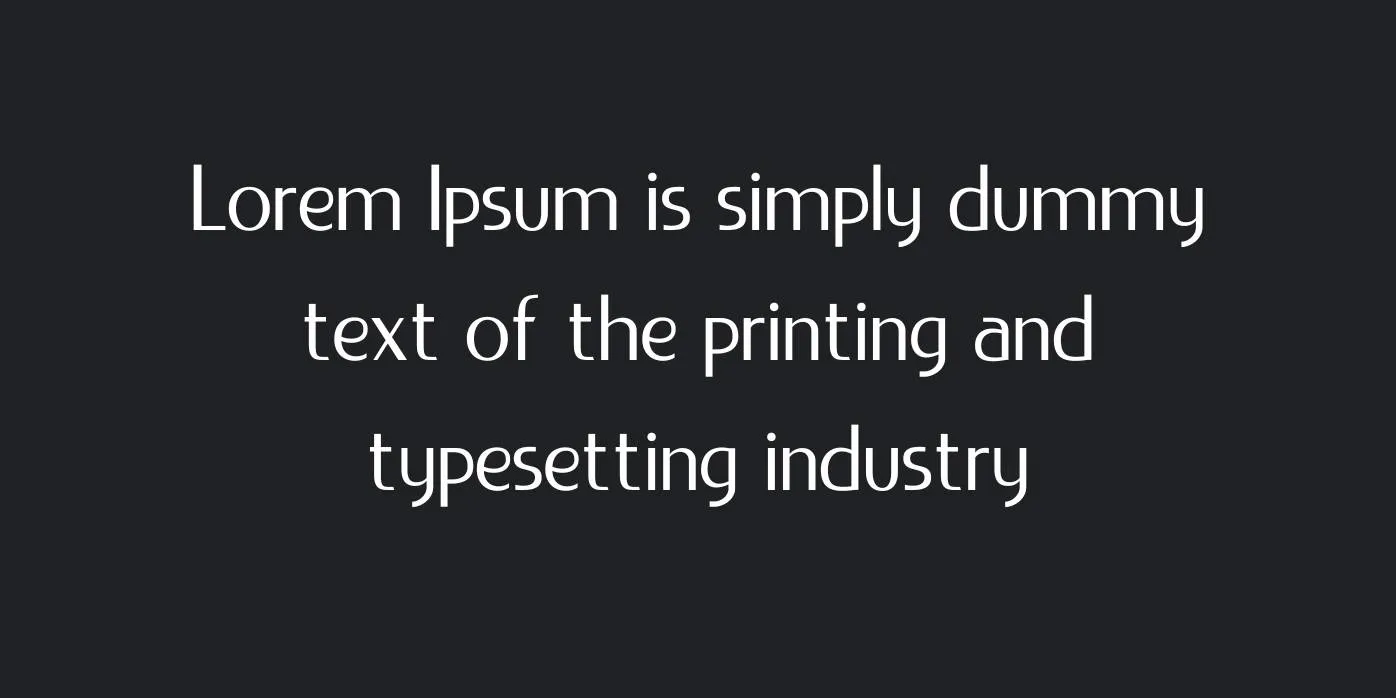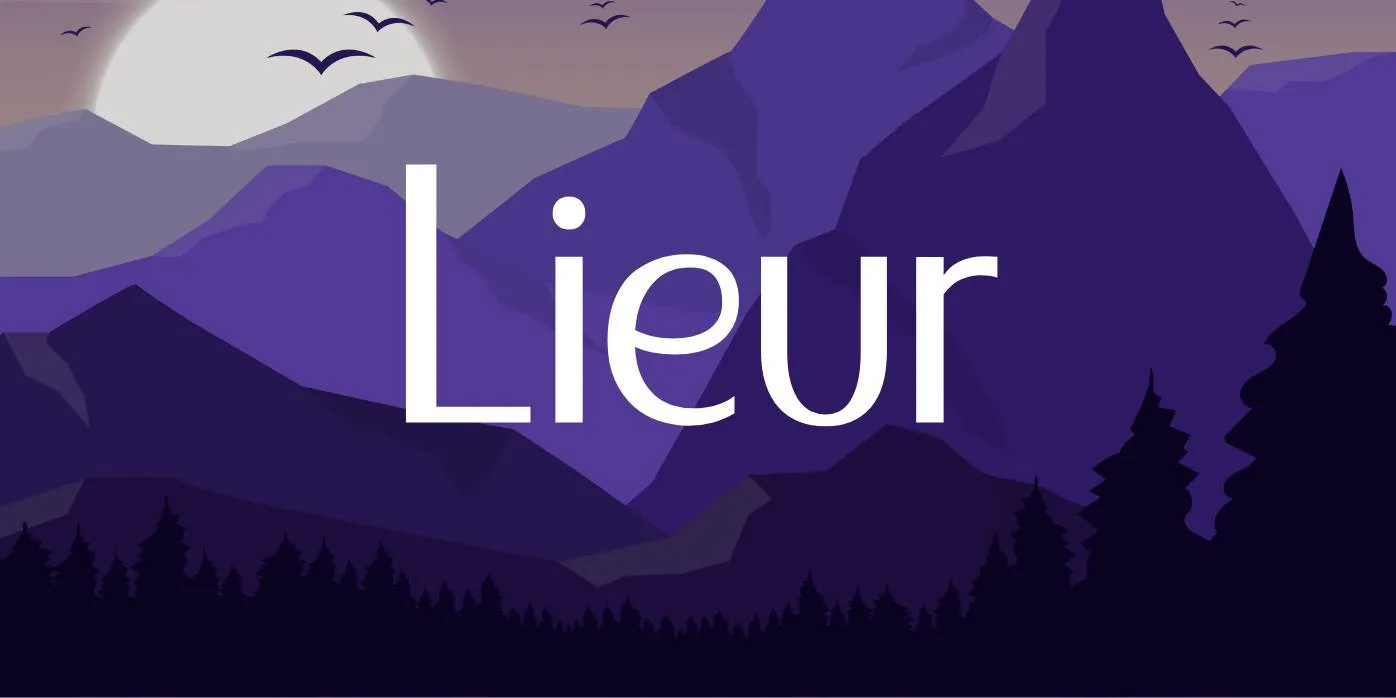
Lieur Font
We talk about an amazing font which is designed by Andi Winarno. You can make so many different projects by using Lieur font. It is good for both personal and commercial projects. It has many different features such as it contains 265 characters, 235 glyphs, and 2000 units per Em.
The weight of the font is Semi-Light and its width is Semi-condensed. It is a very neat and clean Sans-Serif Font and has high readability. It has different weights which makes It useful for many organizations such as Light, Italic, Regular, Medium, Light Italic, Medium Italic, Bold, Bold Italic, Black, and Black Italic. An online generator tool also supports this font which you can change your simple designs into stylish looks without downloading the font.
Usage It has different characters, capital letters, small letters, punctuations, and special characters. You can make many different projects by using this font. It is good for making banners, posters, flyers, and signboards by using this font. It is most commonly used for making attractive labels, and logos.
You can use it for making titles and headlines. This stunning font is designed for making social media posts, blogs, and website headers. You can make amazing websites and graphic designs by using this font. It can be used to design or edit your projects in Adobe Photoshop, CSS, and Canva.
To make book covers, fashion magazine covers, and comic book designs you can use this font as well. It can be read even on small-size projects because it has high readability. You can use it for both print and digital media. Lieur Font View Font Information Edit NameLieur Font DesignerAndi Winarno StyleSans-Serif TypeOTF, TTF LicenseFree for Personal Use Download Lieur Font You can download this font from this site by pressing the below download button in a zip file and enjoy the amazing features of this font.
You can use it for making labels, branding, product packing, and many other projects.